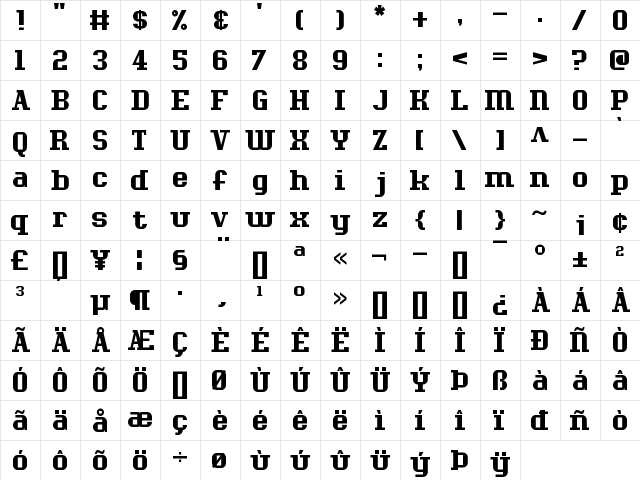
Messe Berlin Regular
Design Context for Messe Berlin Typeface
Messe Berlin takes a measured approach to typography — its balanced proportions and neutral character make it a reliable workhorse for both digital and print work.